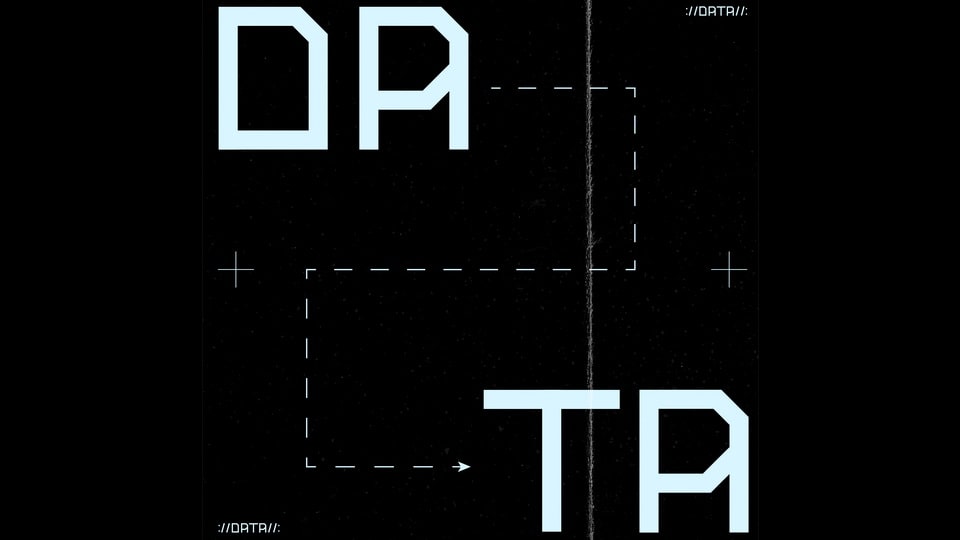
Download Data font, a sci-fi computer inspired typeface. With its sharp geometric look Data font is perfect for technical graphics and HUDs.
Designer: Lewis Taglialavore